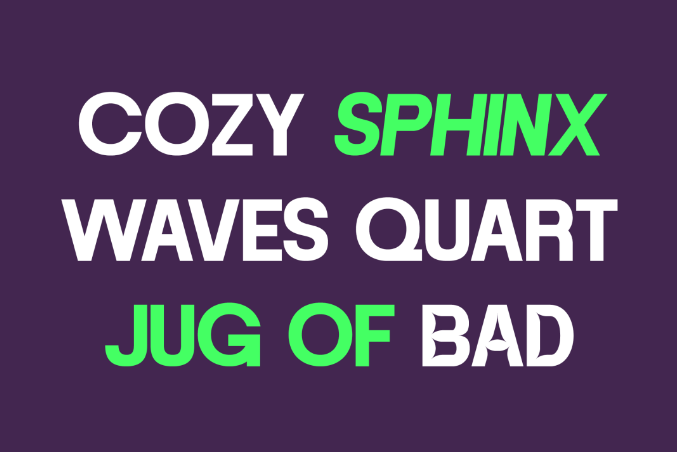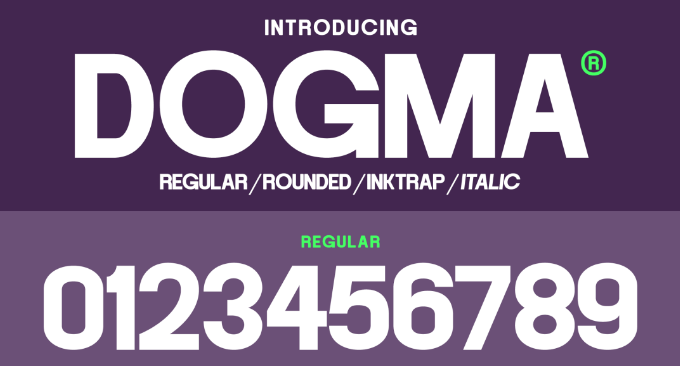
Dogma Font
Dogma Font, is a modern sans serif with four styles: regular, rounded, inkstrap, and italic. The regular style is clean, rounded is playful, inkstrap is rugged, and italic adds elegance. It’s versatile and perfect for a range of design projects, with a modern and contemporary look.